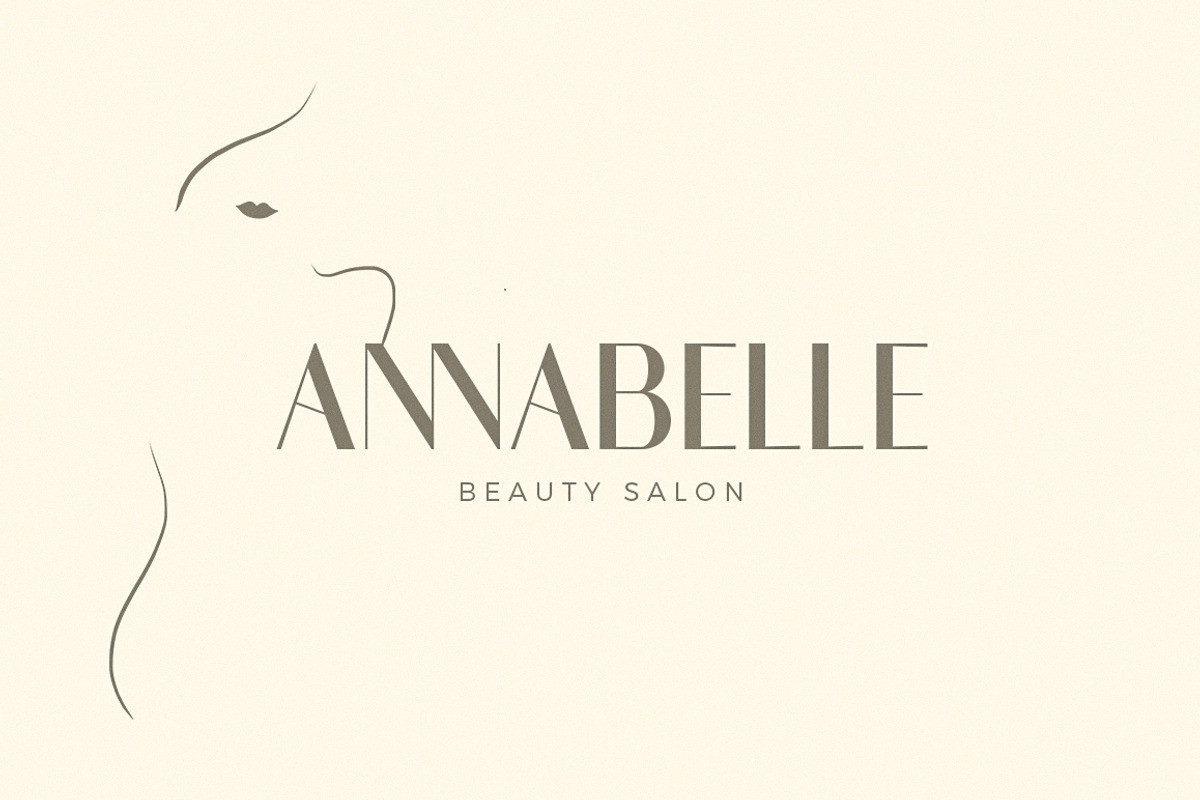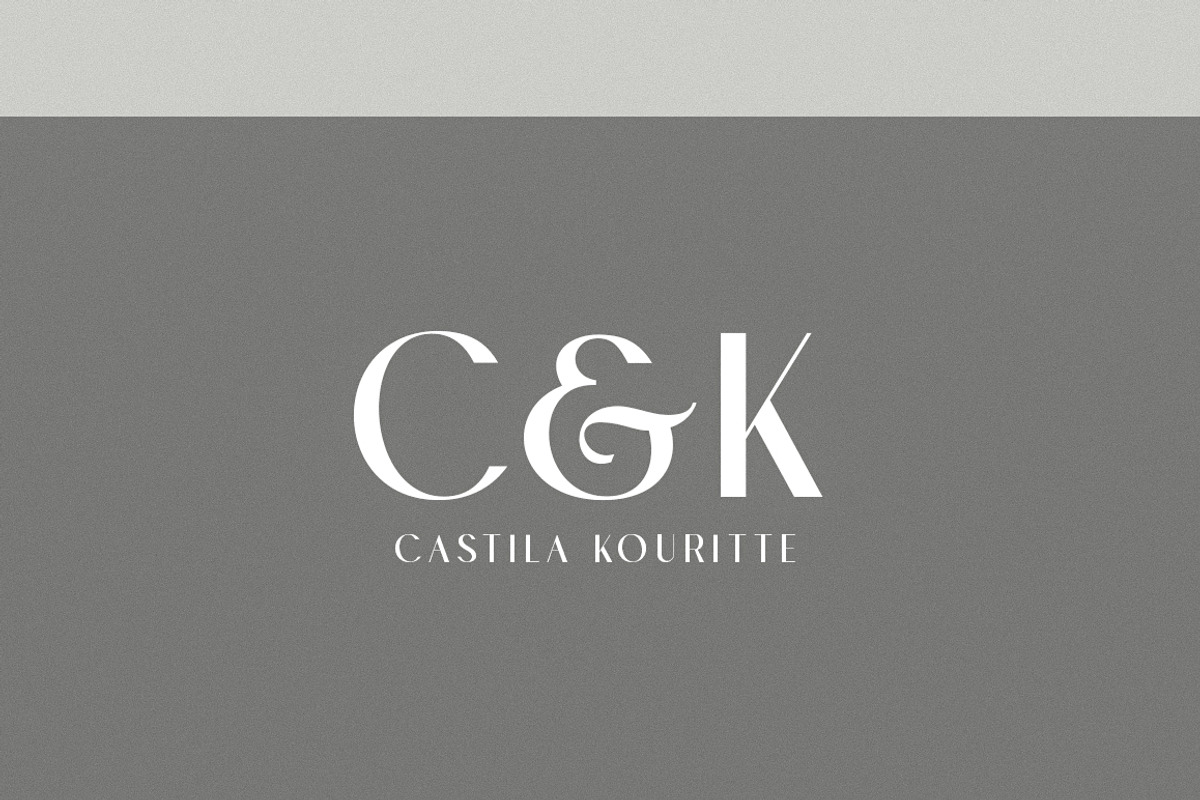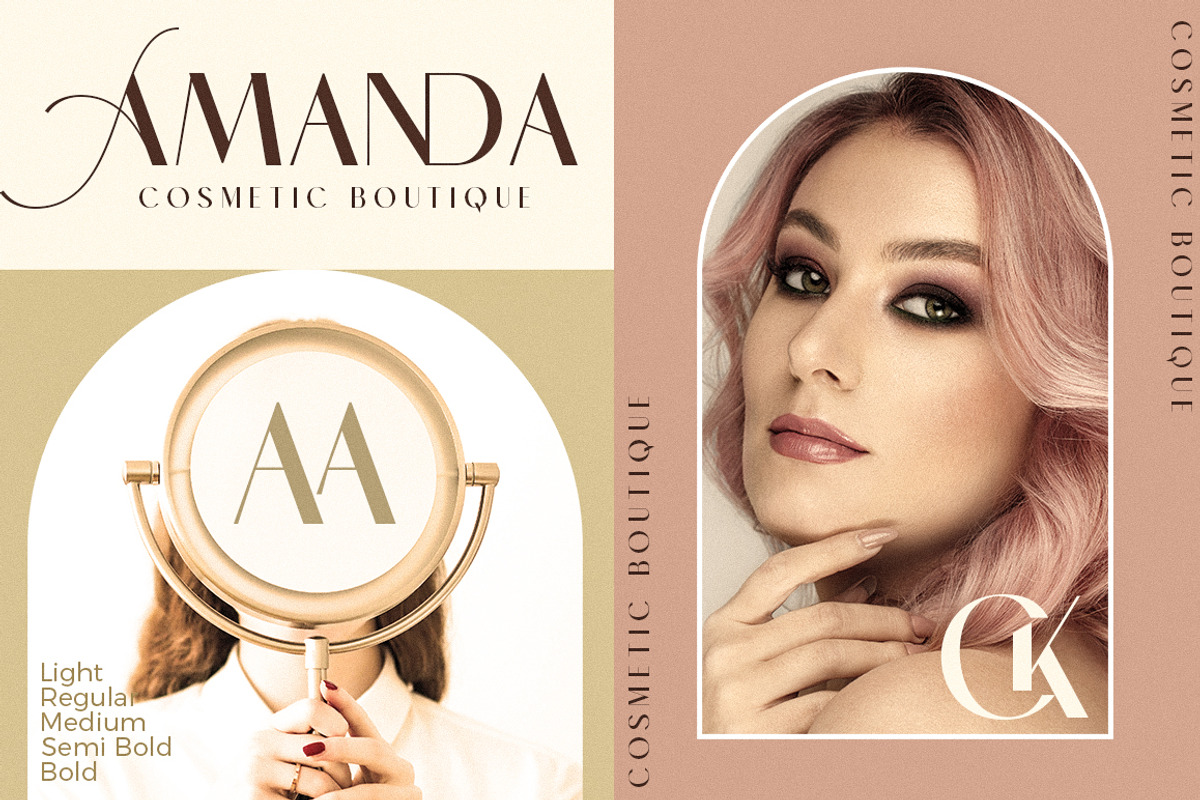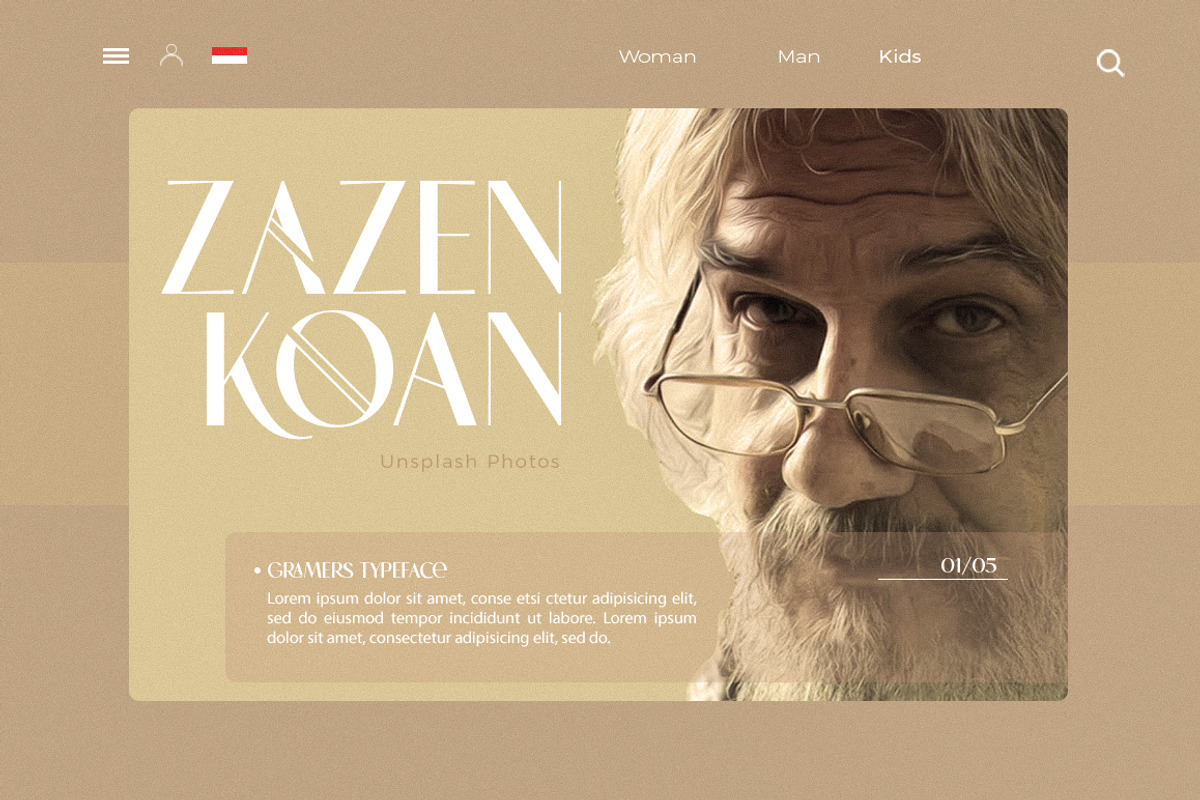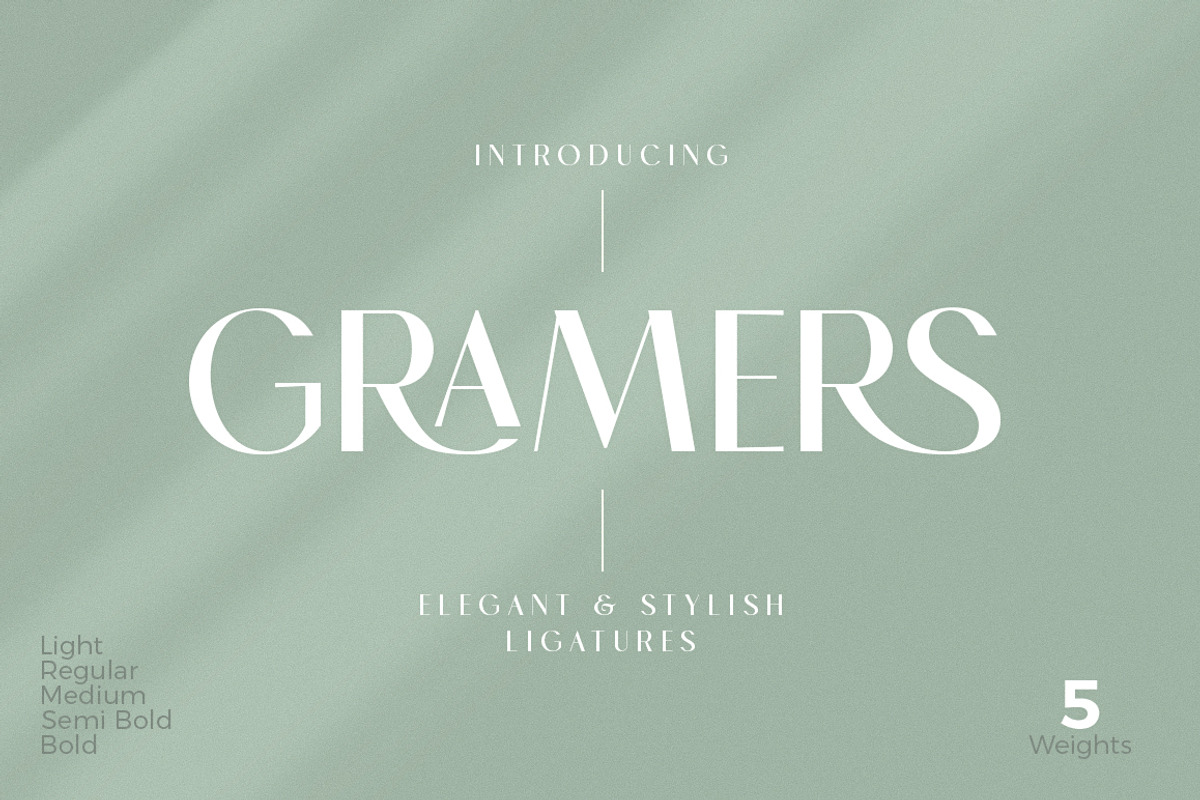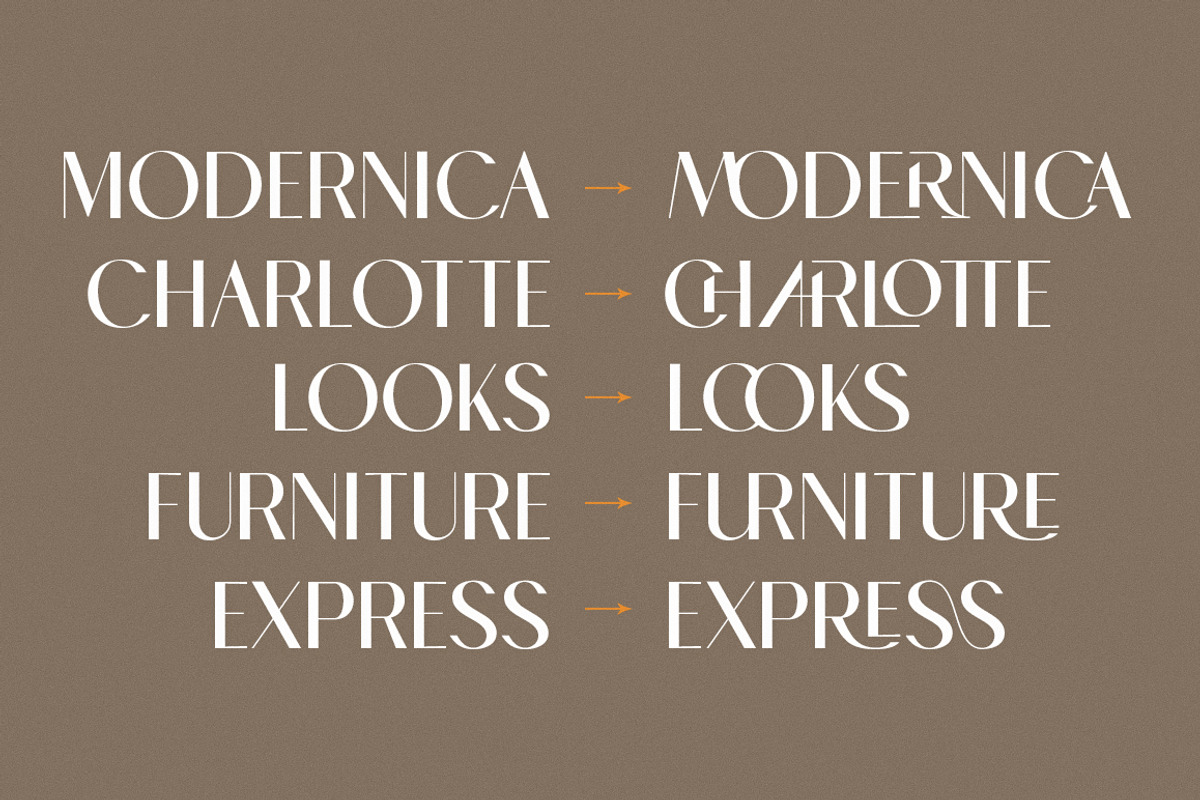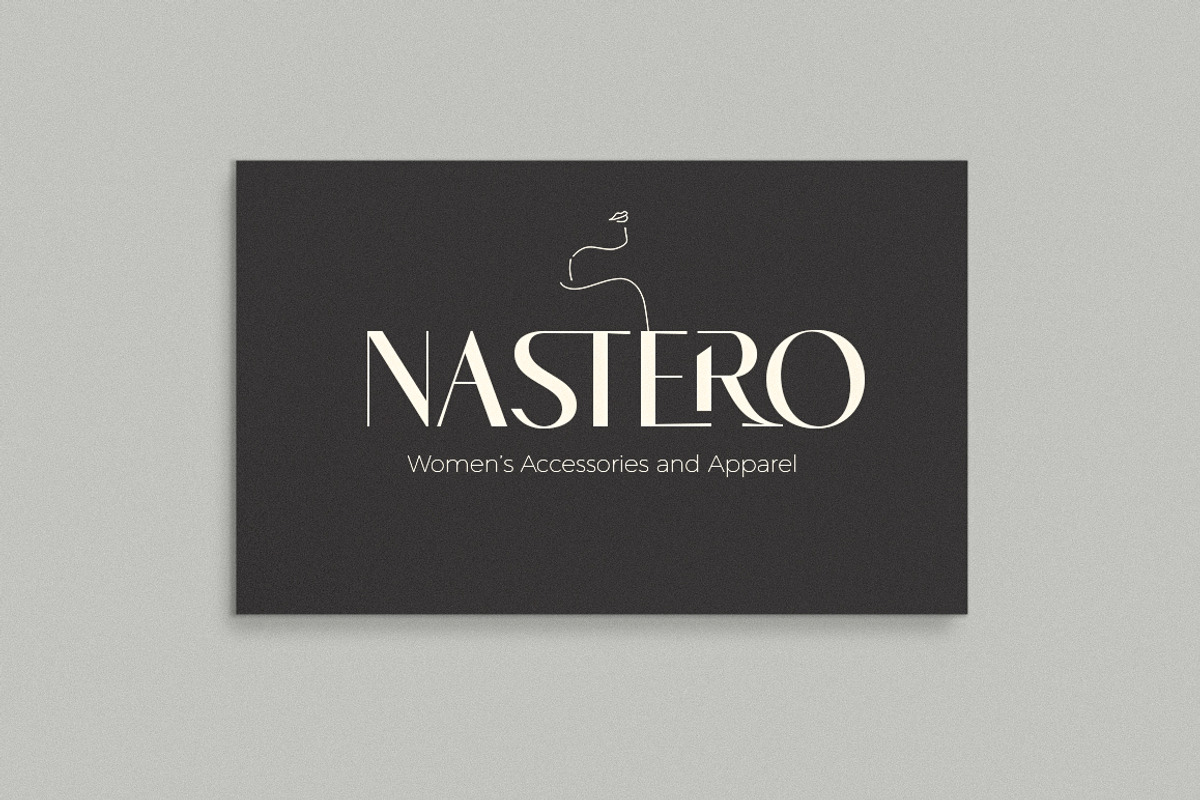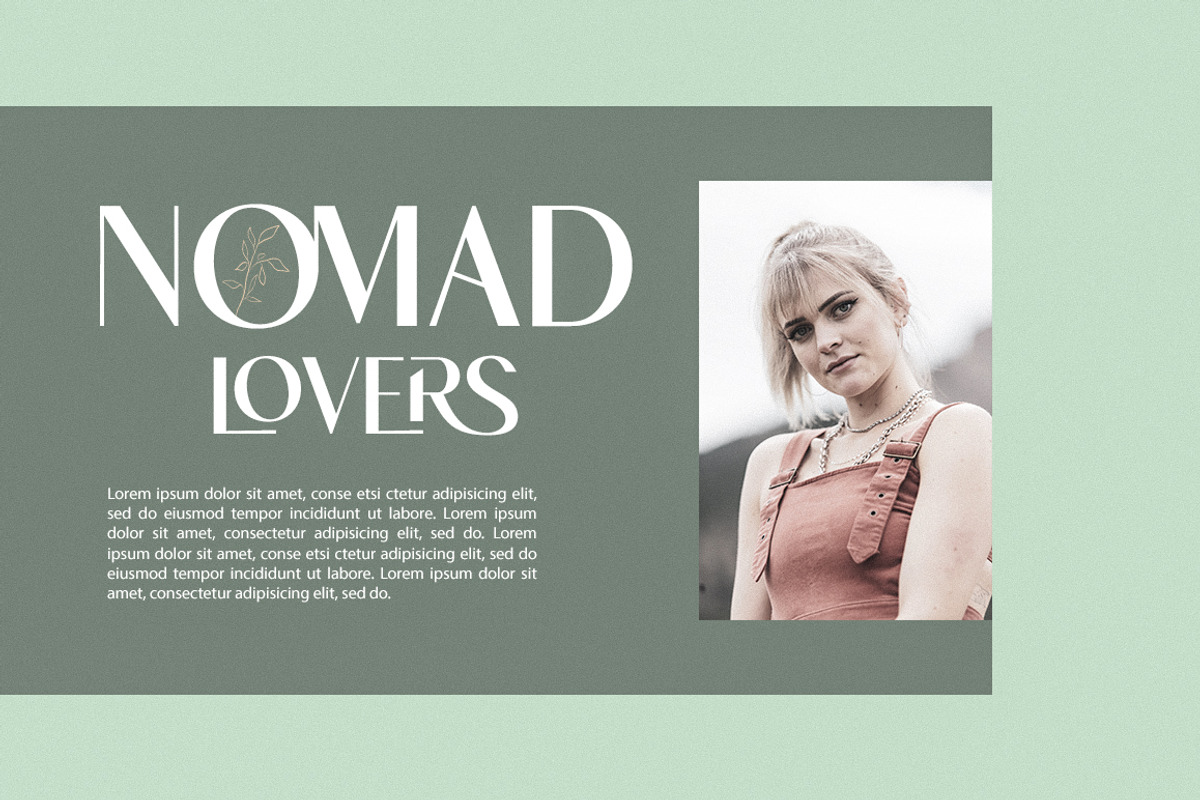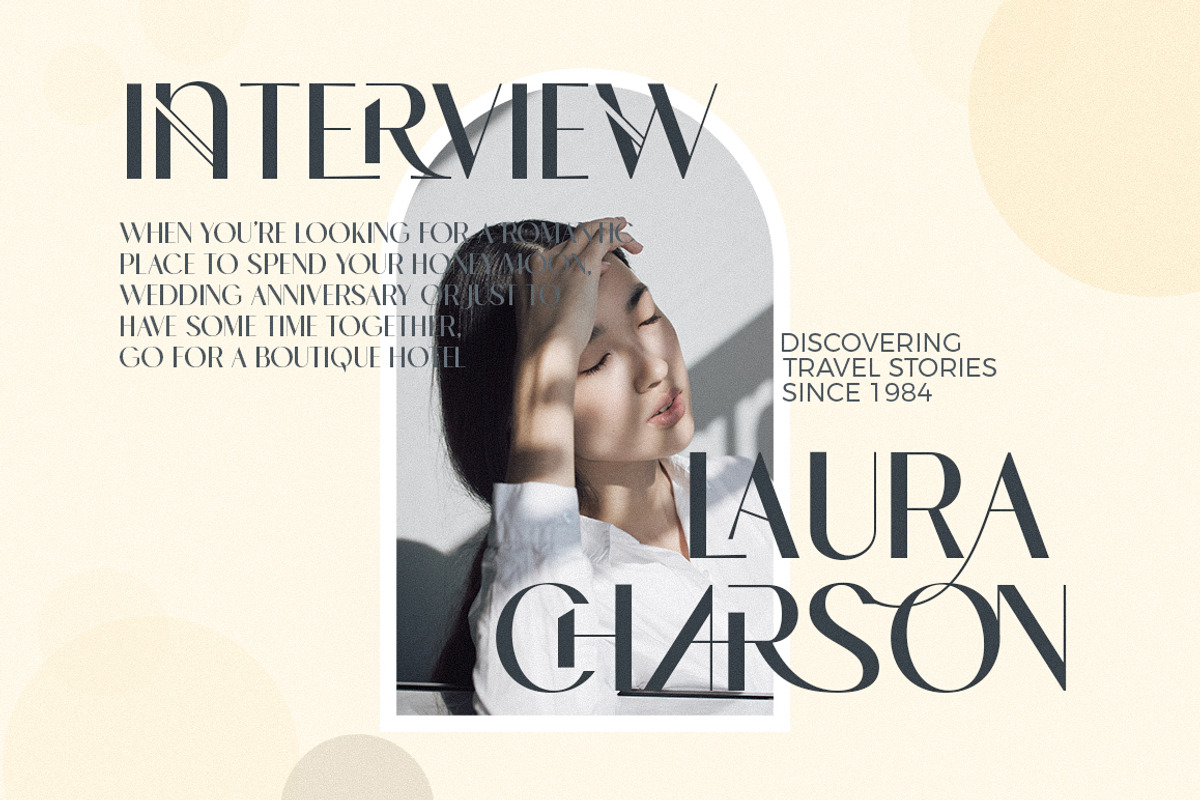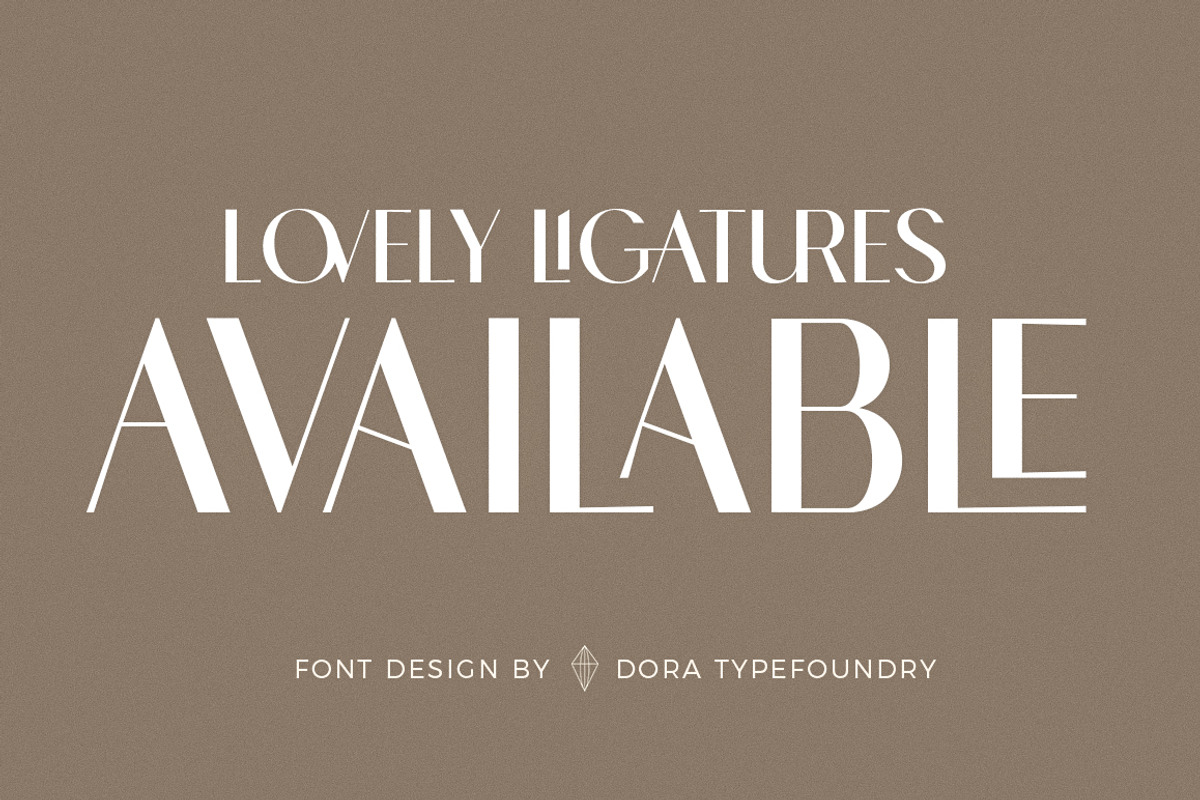
Gramers
Gramers is an elegant and modern minimalist font family, a new roman sans serif font carefully crafted, These font ideas come from various references, from vintage, classic, art deco, to the modern era. Carefully drawn with high contrast between the strokes bold and thin with the aim of making even the simplest sans serif letters look sensual, elegant, and warm. The feeling of versatility and luxury you get in Gramers. As you can see in the display of our creations such as Branding, Header, Logotype, Posters, Magazines, Packaging, Art deco wedding invitations, and others.
This shows that Gramers can accommodate various design styles.
The flat lines cover five styles (each light, regular, medium, semi thick, Thick), each of which includes nearly 293 glyphs. OpenType features include 103 standard ligatures and a small number of character variants, and multilingual support (including multiple currency symbols).
- 5 Font weight
- uppercase
- Alternative & Ligature Styles
- Characters with accents
- Supports Multiple Languages
This type of family has become the work of real love, making it as easy and enjoyable as possible.